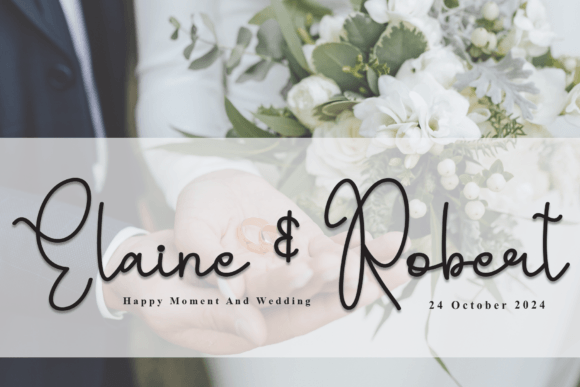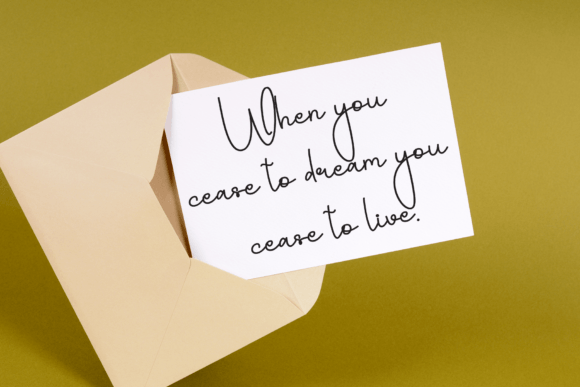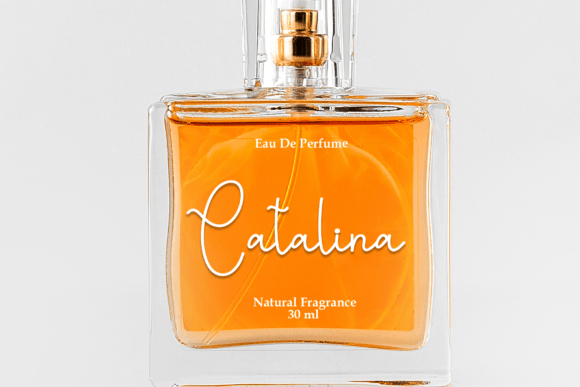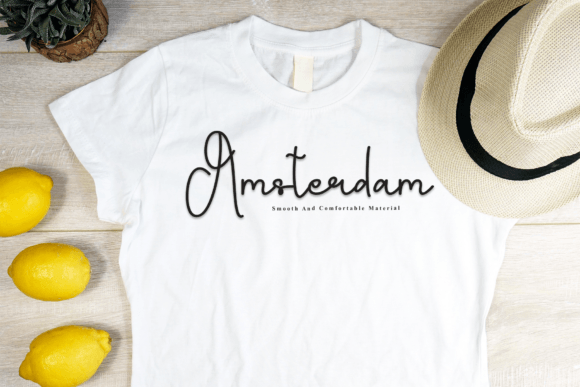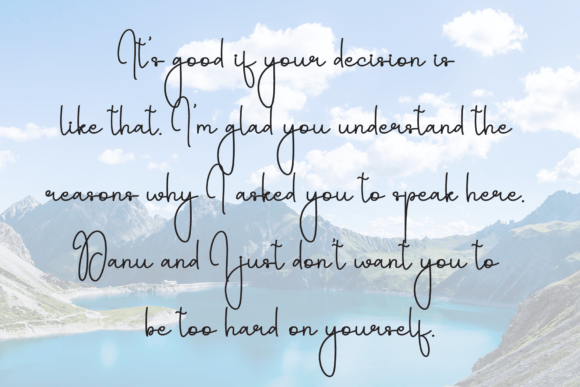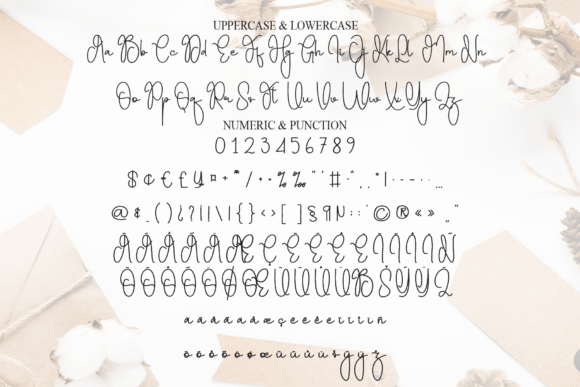
Introducing Boho Christmas Font: A Charming Handcrafted Display Typeface
Are you looking for a font that embodies the warmth and whimsy of the holiday season? Look no further than the Boho Christmas Font, a delightful handcrafted display typeface that is sure to add a sweet simplicity to your designs. Crafted with care and infused with a fun-loving vibe, this charming font is perfect for designers and crafters who want to create unique and eye-catching projects.
A Font that Brings Joy to the Written Word
The Boho Christmas Font is more than just a font – it’s an experience. Its playful aesthetics are designed to inject an enchanting touch into your creations, making them stand out from the crowd. Whether you’re crafting wedding invitations, personalizing greeting cards, or designing festive holiday decor, this font is sure to bring a smile to your face and joy to your designs.
The Boho Christmas Font is a versatile font that can be used for a wide range of design projects. Its whimsical and playful style makes it perfect for:
- Personalized greeting cards and gift tags
- Festive holiday decor and signage
What Sets Boho Christmas Font Apart
So, what makes the Boho Christmas Font so special? Here are just a few features that set it apart:
- Handcrafted with care and attention to detail
- Unique and playful aesthetic that’s sure to stand out
- Perfect for a wide range of design projects
- Easy to use and pair with other fonts
Tips for Using Boho Christmas Font
Here are a few tips for using the Boho Christmas Font in your designs:
- Use it as a headline font to add a pop of personality to your designs
- Pair it with a simple serif font for a beautiful contrast
- Use it to create custom illustrations and graphics
Get Ready to Fall in Love with Boho Christmas Font
In conclusion, the Boho Christmas Font is a must-have for designers and crafters who want to add a touch of whimsy and warmth to their designs. With its unique and playful aesthetic, this font is perfect for a wide range of design projects, from wedding invitations to festive holiday decor. So if you’re looking for a font that will bring joy and personality to your designs, look no further than the Boho Christmas Font.